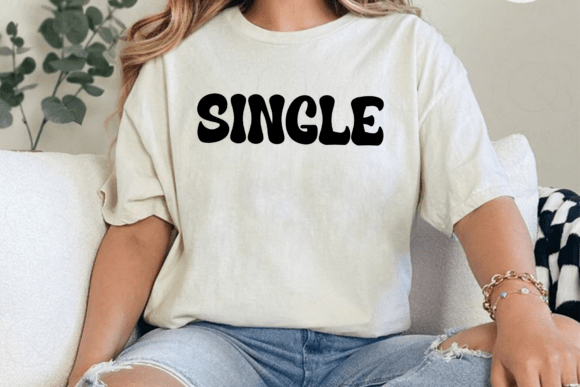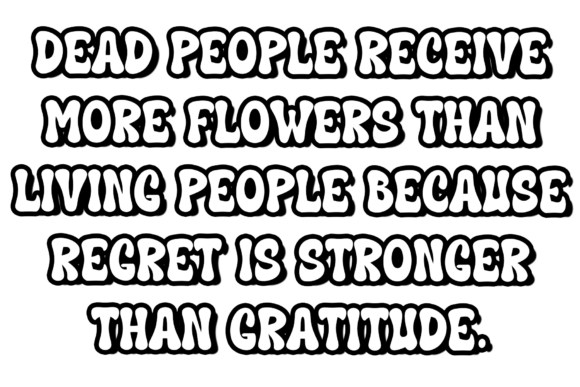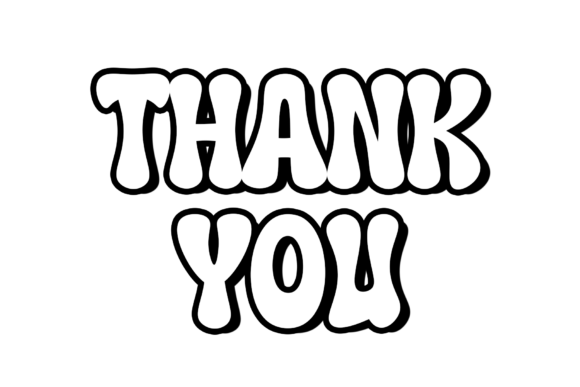
Introduction to Mother Charm Font
Have you ever been in the middle of a creative project, staring at a blank canvas, and suddenly, the perfect font pops into your head? For designers, this moment is pure magic. It’s the moment when everything clicks, and your design comes to life. For me, that moment happened when I discovered the Mother Charm Font. Its bold, bubbly display font is bursting with personality, making it the perfect addition to any design.
The Mother Charm Font is more than just a pretty face; it’s a valuable resource for designers looking to add a playful and slightly funky vibe to their work. With its groovy, retro-inspired letterforms, this font is ideal for posters, t-shirts, kids’ products, logos, titles, and anything that calls for a fun, standout aesthetic. Whether you’re looking for a free download with a transparent background or a high-quality font to elevate your design, Mother Charm Font is sure to bring a vibrant, creative energy to your project.
- Unique, hand-drawn style with intricate details, perfect for adding a personal touch to designs.
- Includes a range of characters, including uppercase and lowercase letters, numbers, and special symbols.
- Designed to be versatile and work well with a variety of design styles and themes.
I recently had the opportunity to work with the Mother Charm Font, a free download that promises to add a touch of elegance to any creative project. As a designer, I was excited to see how it would perform.
- ✨ The design is classic and sophisticated, making it perfect for projects that require a touch of whimsy.
- ⚠️ The font may not be as versatile as some other options, so it’s best to use it for projects that have a specific, vintage feel.
- ⚠️ The font is not available in as many weights as some other options, which may limit its use in certain projects.
Overall, I was impressed with the Mother Charm Font and would definitely recommend it to designers who are looking for a high-quality, free design resource. It’s perfect for creative projects that require a touch of elegance and sophistication.
The Mother Charm Font is a free download that offers a high-quality design resource for your creative project. With its unique and charming style, it’s perfect for adding a touch of elegance to your designs.
The Mother Charm Font is perfect for a variety of designs, including:
- Baby shower invitations and decorations
- Valentine’s Day cards and gifts